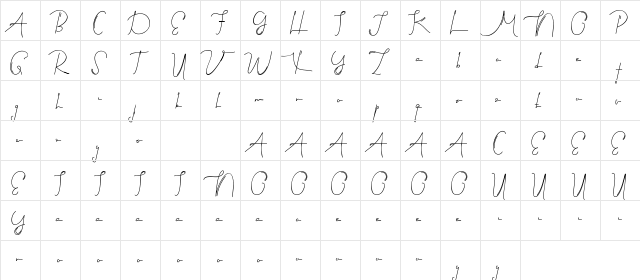
Black Suit Demo Inline Regular
Design Context for Black Suit Demo Inline Typeface
Black Suit Demo Inline brings ornamental detail and strong personality to headlines and identities, where visual impact matters more than quiet functionality.
Font Pairing: Pair with a clean neutral sans-serif for body copy to let Black Suit Demo Inline's character lead without overwhelming the composition.
Pro Tip: Use Black Suit Demo Inline exclusively at display sizes — it was designed to be seen, not read at length. Let a neutral companion handle body copy.